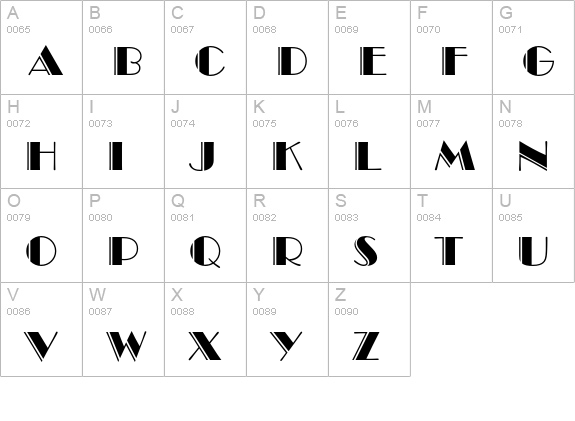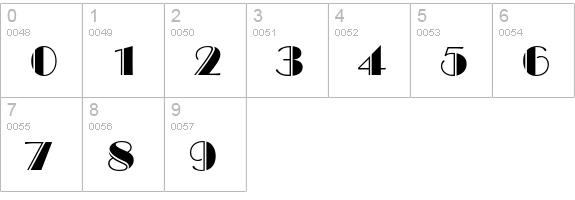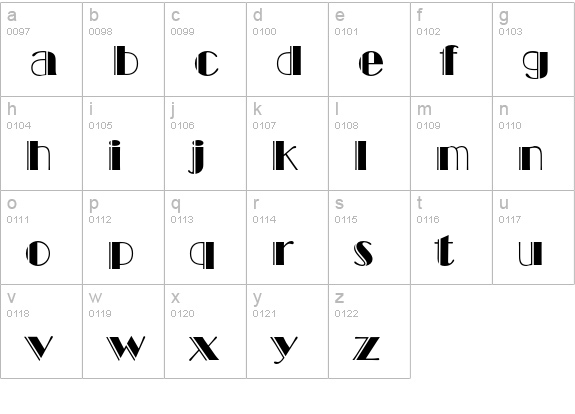
Broadway Engraved font is a stylish and elegant typeface that exudes a sense of sophistication and class. Its bold and striking design makes it perfect for adding a touch of glamour to any project. The intricate details of the engraving give this font a unique and timeless appeal that is sure to make a statement. And the best part? Broadway Engraved font is completely free to download at FontsMarket.com! Whether you're designing a poster, creating a logo, or working on a special project, this font is a versatile choice that will elevate your work to the next level. Don't miss out on the opportunity to add this stunning font to your collection today!